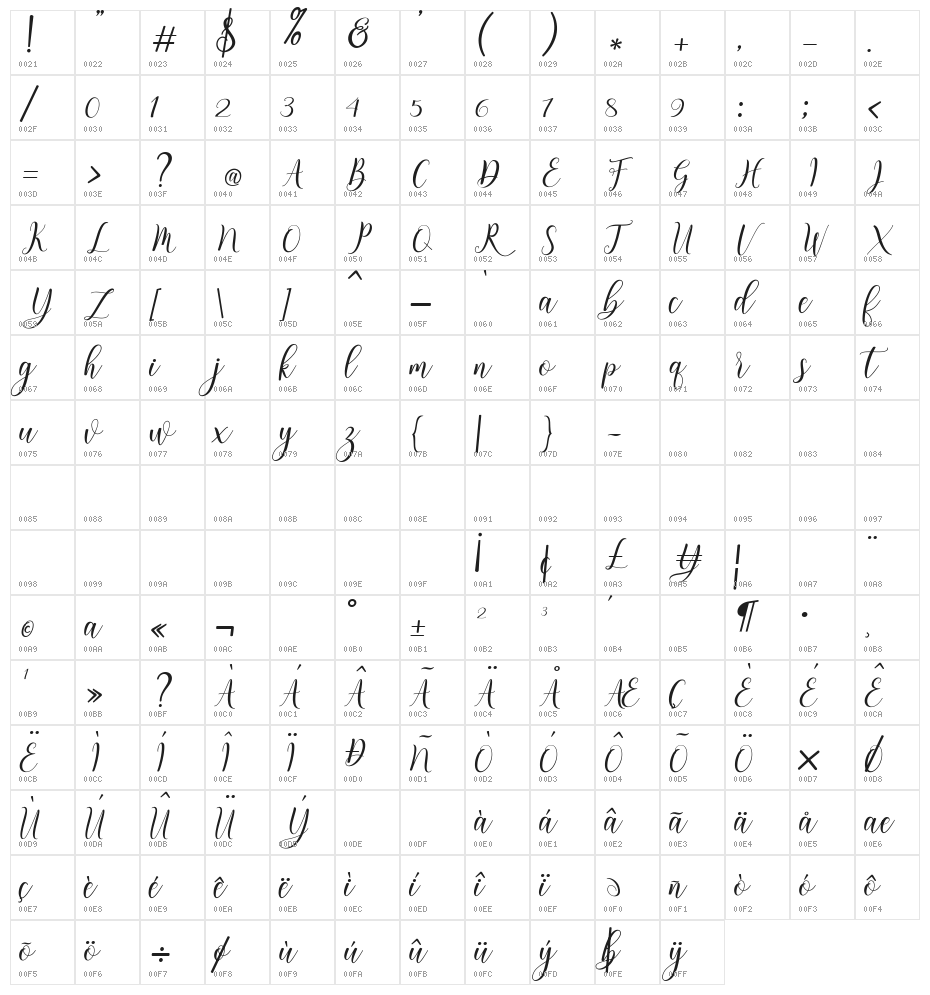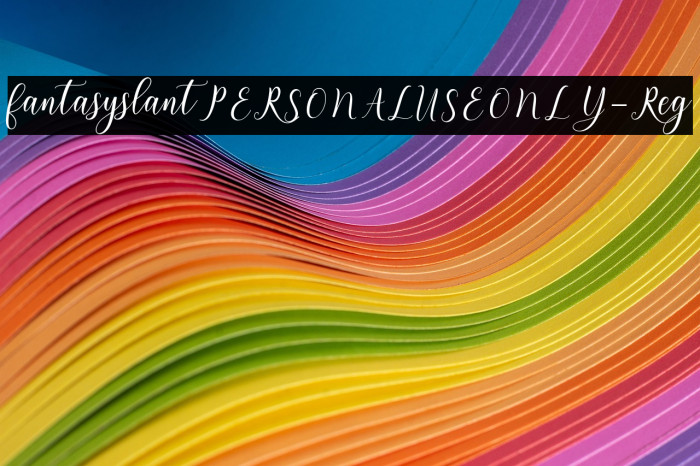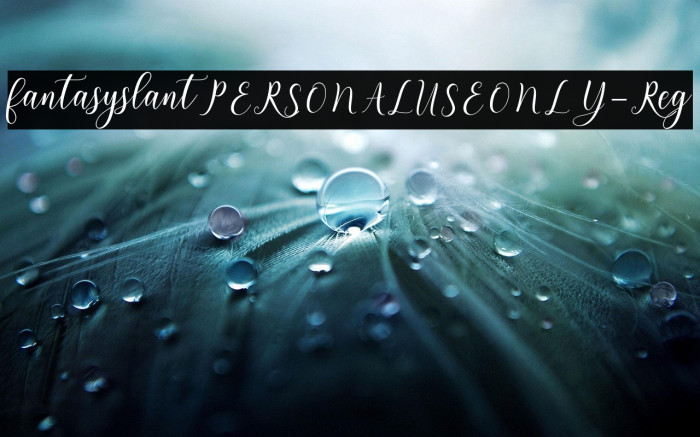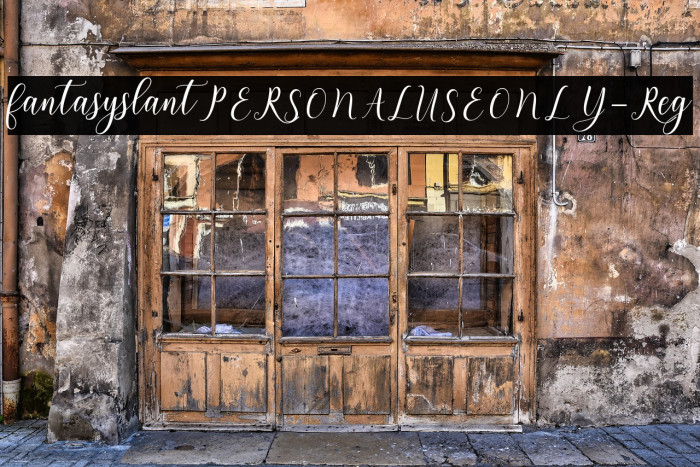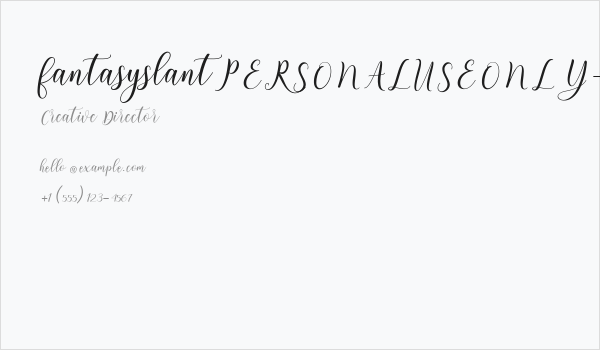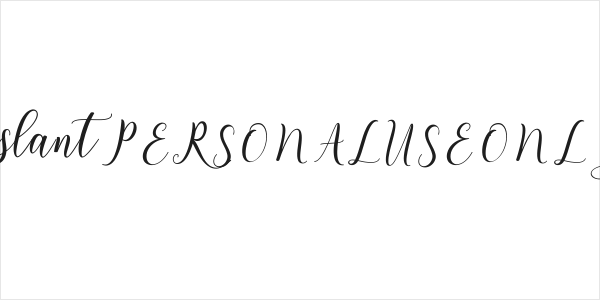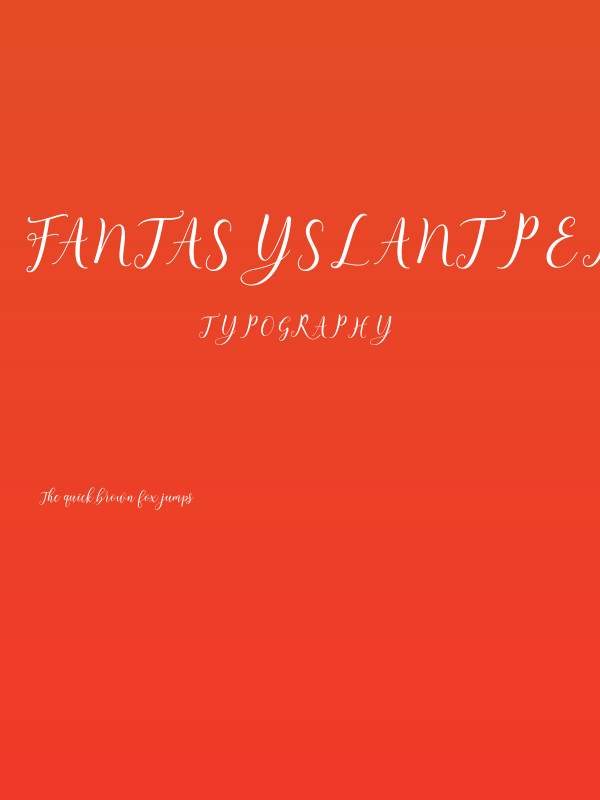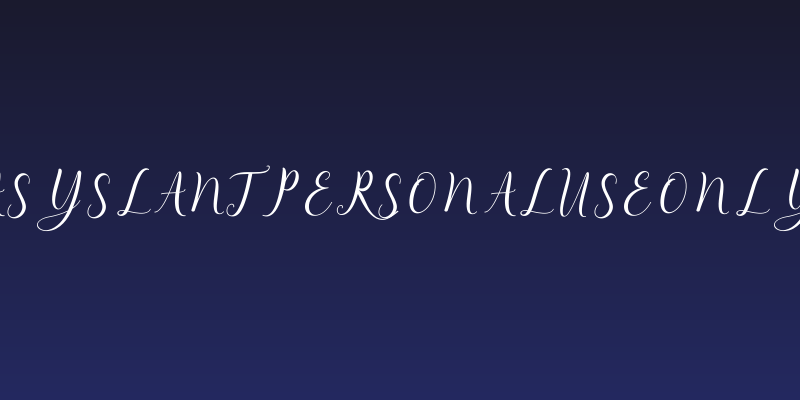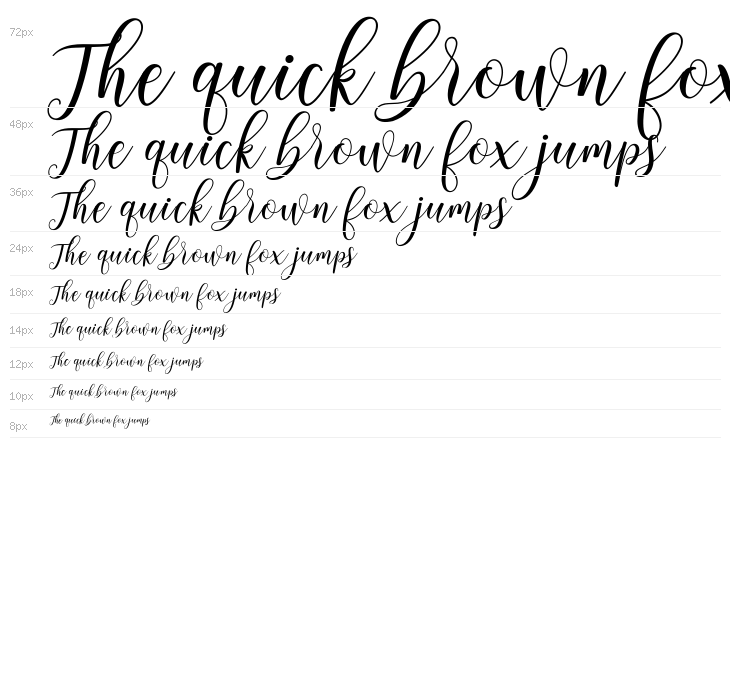
fantasyslantPERSONALUSEONLY-Reg Font
fantasyslantPERSONALUSEONLY-Reg Description
This font features a whimsical and elegant script style with a distinct slant, giving it a dynamic and flowing appearance. The uppercase letters are tall and slender, with graceful curves and loops that add a touch of sophistication. The lowercase letters maintain a consistent style, with some characters featuring unique flourishes that enhance the font's decorative nature. The numerals are cohesive with the overall design, maintaining the same slanted, cursive style. Special characters are thoughtfully integrated, ensuring they match the font's aesthetic. This font is ideal for projects that require a personal and artistic touch, such as invitations, greeting cards, or branding materials.